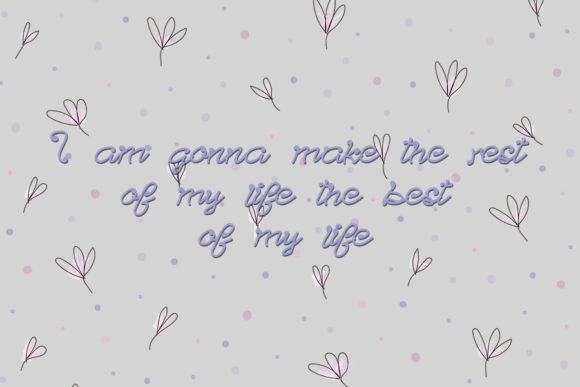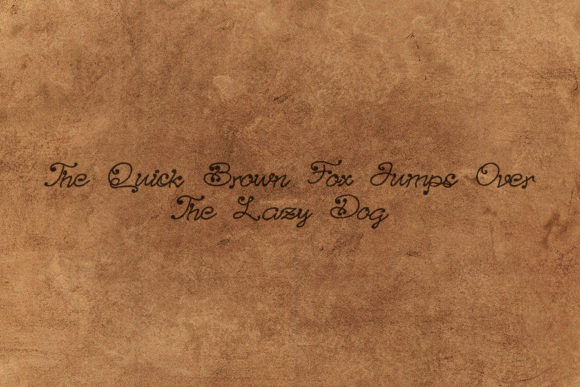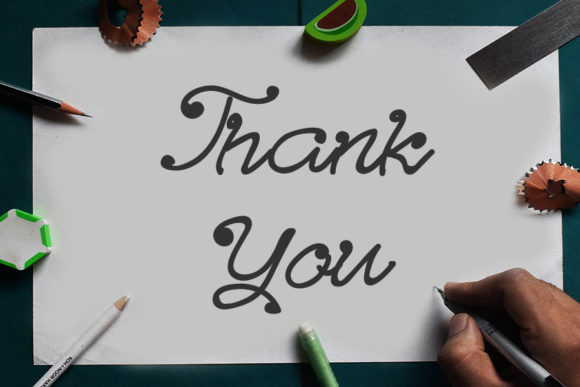
HomeScript FontsBatik Font Script Fonts Batik Font FacebookXPinterestWhatsApp 1 of 4 Batik Font Poster 2... Batik Font Poster 3... Batik Font Poster 4... About Batik Font Batik is a fun and unique handwritten font. This is the perfect font for making original and outstanding designs! DOWNLOAD NOW People also explored Sewing Machine Font Night Marie Font Ragile Font Valiesta Font Lyndon Font Quasimodo Font Orange Pumpkin Font Calm Capricorn Duo Font Monteyla Font 314 0 TagsBatik Font Previous articleTinnyTon FontNext articleGod Among Man Font LEAVE A REPLY Cancel reply Comment: Please enter your comment! Name:* Please enter your name here Email:* You have entered an incorrect email address! Please enter your email address here Website: Save my name, email, and website in this browser for the next time I comment. Personal Use Free Bahjera Personal Use Free Read more about this font Carrolina Personal Use Free Read more about this font Planning Personal Use Free Read more about this font Soulties Personal Use Free Read more about this font BLOG How to Cut Any Font on Cricut: Convert a Font to SVG (Free) Turn any font into a clean SVG so it cuts crisp on Cricut - a quick 3-step workflow using a free font-to-SVG tool. Top 10 Handwritten Fonts That Elevate Your Designs Using Fonts in Digital Marketing: Tips to Strengthen Your Brand Identity Free Fonts Risk: Why Free Fonts Can Be Dangerous for Designers